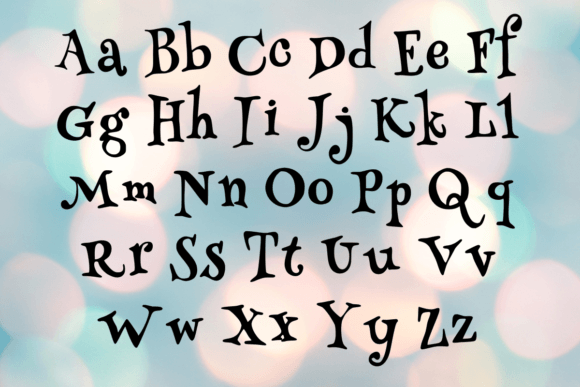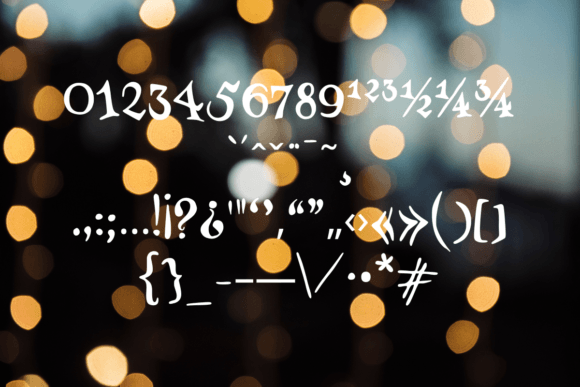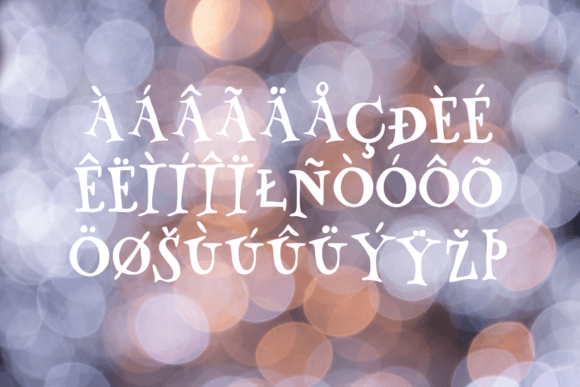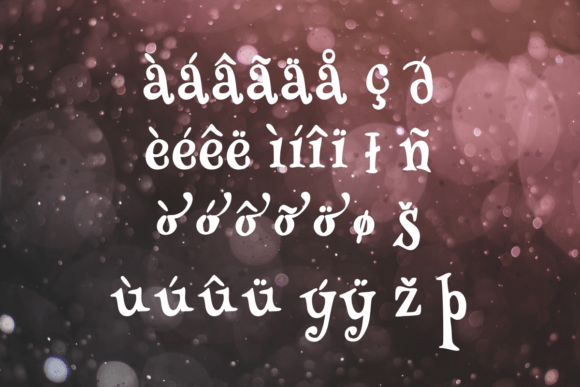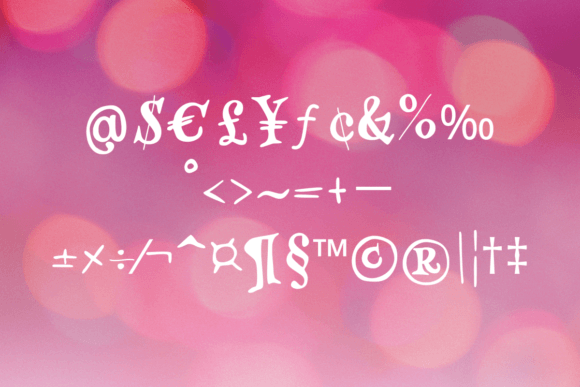
Introduction to Merlin Lynet Font
Remember the feeling of stumbling upon an old family photo album or a vintage advertisement? The excitement of discovering a piece of history that sparks creativity and imagination? That’s exactly what the Merlin Lynet Font is all about – capturing the essence of mid-century design and infusing it into your creative project with a playful, nostalgic touch.
As a valuable design resource, the Merlin Lynet Font is perfect for adding a dash of high-quality, retro flair to your designs. Whether you’re working on a project that requires a free download or need a font with a transparent background, Merlin Lynet Font has got you covered. With its incredible display capabilities, this font is sure to elevate your design game and leave a lasting impression on your audience.
Get ready to unlock the full potential of your creative project with the Merlin Lynet Font – a game-changing design element that’s sure to bring a smile to your face and a touch of nostalgia to your work.
Key Features of Merlin Lynet Font
- Unique, intricate design with a transparent background, allowing for versatility in design applications.
- Perfect for designers looking for a distinctive, elegant font to elevate their design work.
- Designed with a high level of detail and precision, ensuring a professional and polished look in any creative project.
Honest Review: Merlin Lynet Font
One thing that really stands out about the Merlin Lynet Font is its high quality. The font is crisp and clear, with a beautiful, intricate design that’s perfect for adding a touch of elegance to any project.
- ✨ High quality and detailed design
- ✨ Beautiful, intricate textures
- ✨ Perfect for creative projects and design resources
However, I do have to mention a few limitations. The font is only available in a transparent background, which may not be ideal for all projects. Additionally, the font is quite decorative, which may not be suitable for all types of text.
- ⚠️ Only available in transparent background
- ⚠️ Decorative font may not be suitable for all types of text
Overall, I’m really impressed with the Merlin Lynet Font, and I would definitely recommend it to anyone looking for a high-quality design resource for their creative project.
The Merlin Lynet Font is suitable for various creative projects, including graphic design, digital art, and typography. It is also great for use in presentations, posters, and other visual materials.